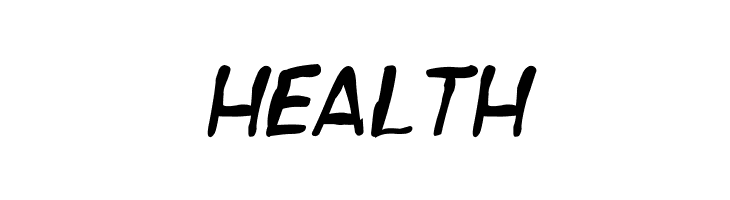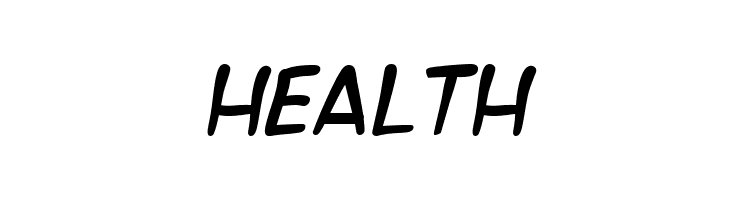
A bold, decorative font with a dotted pattern, perfect for vintage-themed projects.
A sketch-like, hand-drawn font with overlapping lines and a playful style.
A bold, distressed font with a vintage, rugged appearance.
An elegant serif font with high contrast and refined details.
A playful, handwritten font with smooth curves and whimsical style.
A decorative font with celestial star and moon motifs.
A playful font with characters embedded in dinosaur shapes, perfect for fun and imaginative projects.